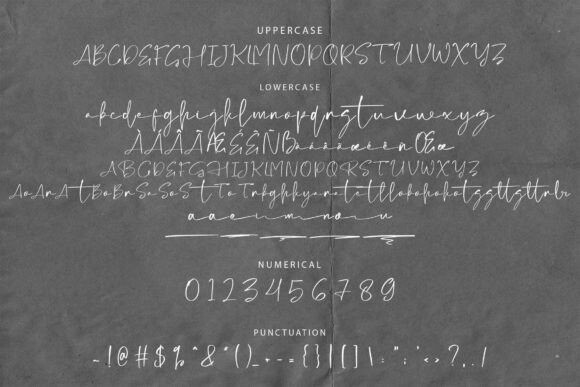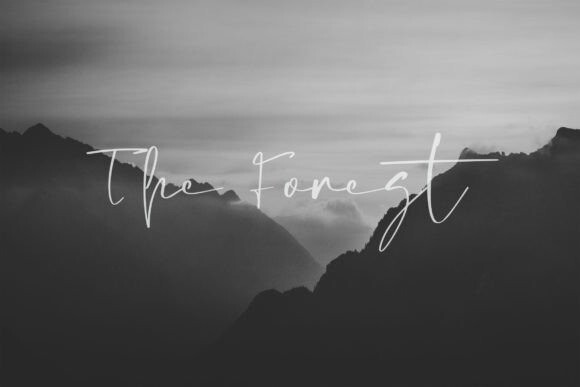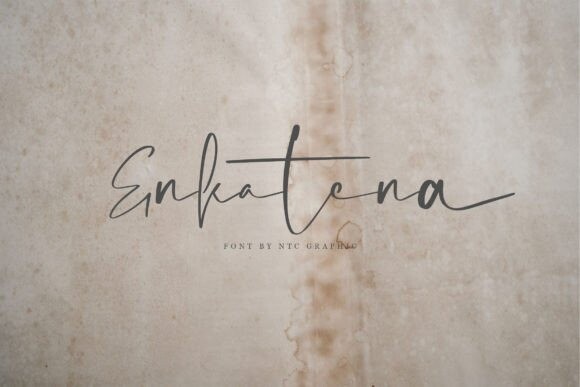
Enkatena Font
Enkatena Font is an elegant script font with a signature-style touch, designed to add sophistication and uniqueness to your creative projects. Each character is carefully crafted with distinct shapes, making it perfect for elevating your designs, from branding to invitations. Whether you’re working on logos, packaging, or promotional materials, Enkatena enhances your product’s visual appeal and professionalism.